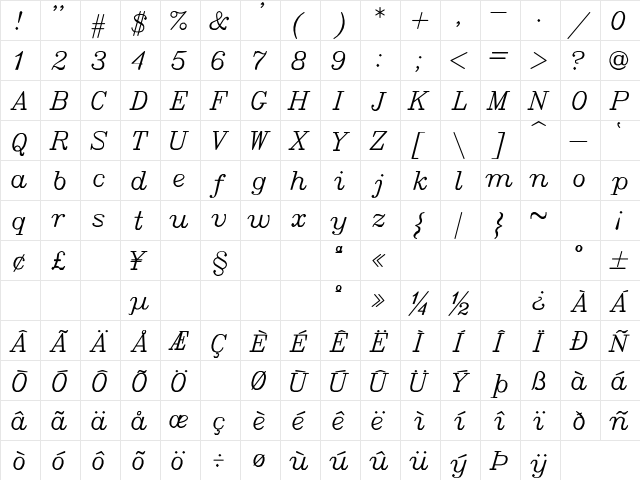
SWItal Regular
Design Context for SWItal Typeface
SWItal is a composed and adaptable typeface that performs quietly and consistently across a wide range of design contexts.